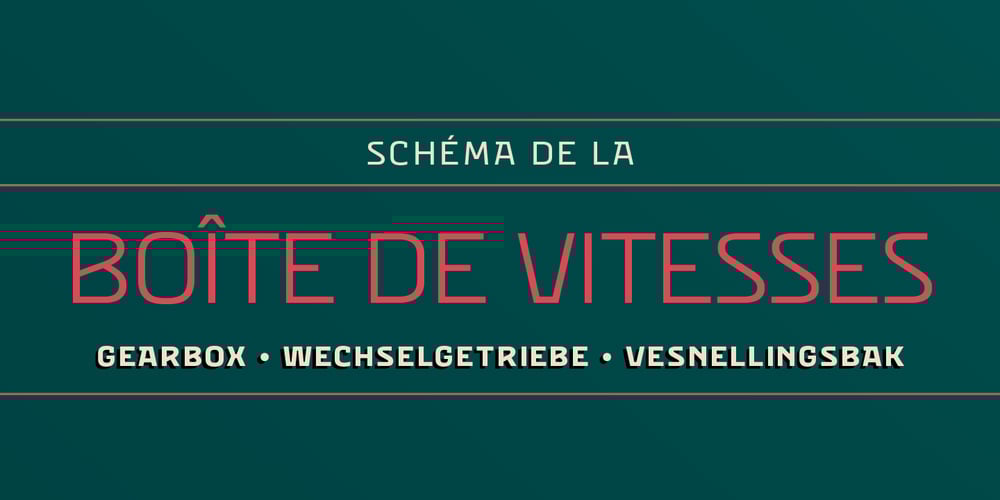
Eixample Villa
Eixample Villa font
Eixample Villa Font Family was designed by José Manuel Urós, Sabina Chipară and published by Type-Ø-Tones. Eixample Villa contains 6 styles and family package options. The Eixample project is inspired by modernist signage of various examples found in the Eixample neighbourhood in Barcelona. The name of each subfamily is related to its location or to specific elements of the original sign.Villa is the abbreviation for Carrer Villarroel (Villarroel Street), where the Villarroel Pharmacy has been displaying this sign since the first quarter of the twentieth century.The Eixample Villa typeface system consists of sturdy letters free of ornaments with an industrial aspect. Only the treatment of the curves borrows modernist features. Like the rest of the families in the Eixample series, Villa shows its origin as a display font, but it has been engineered to give good results at small sizes as well.